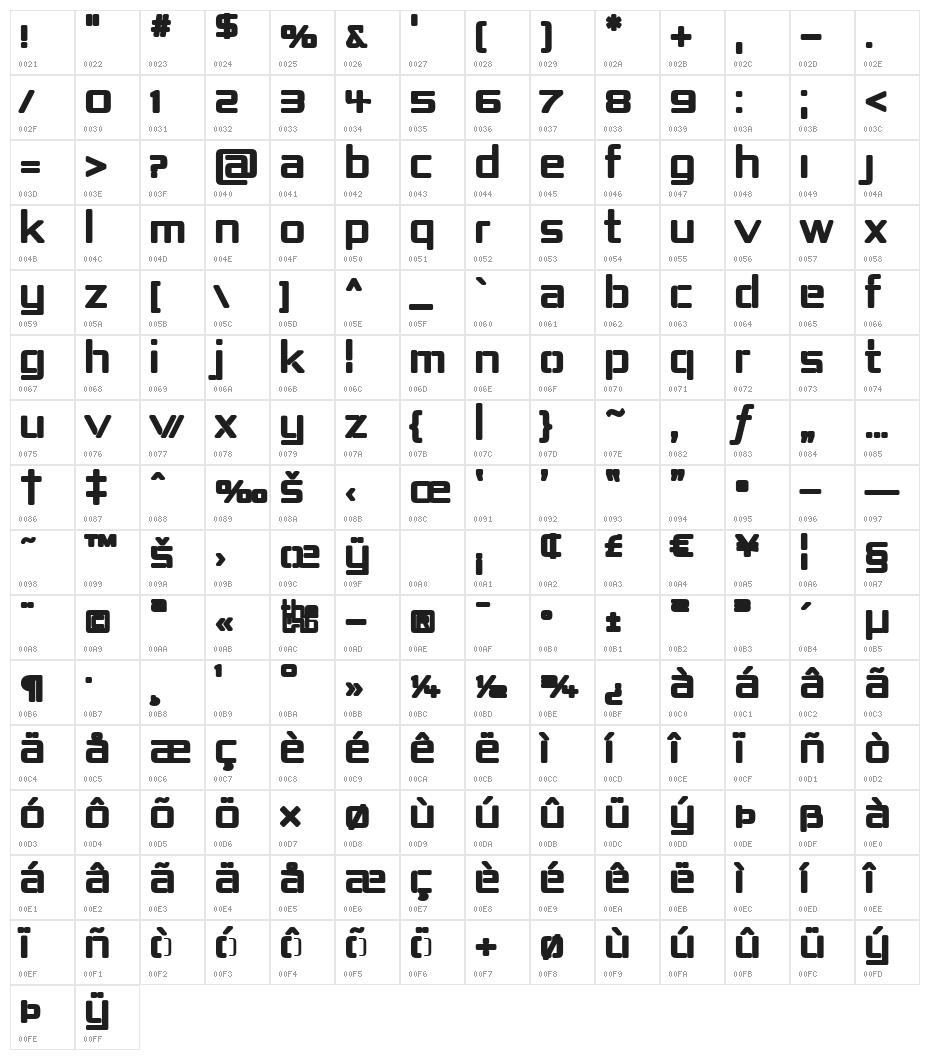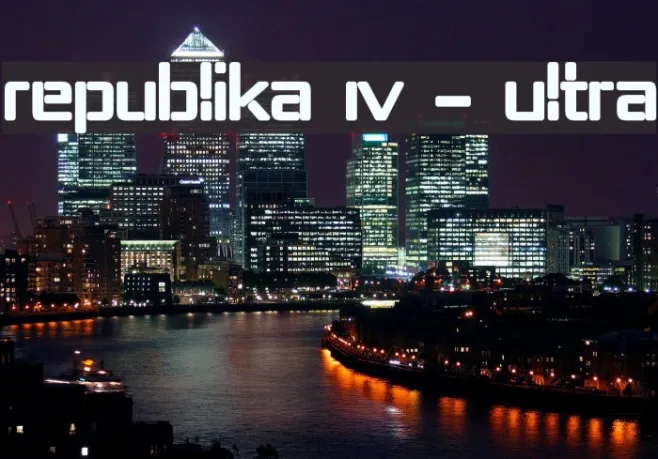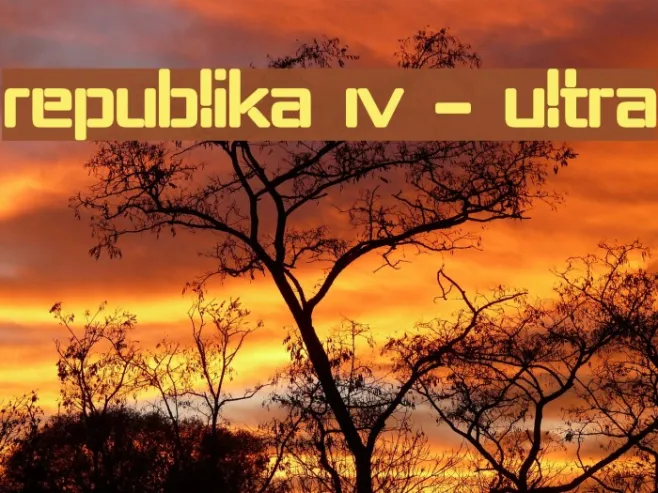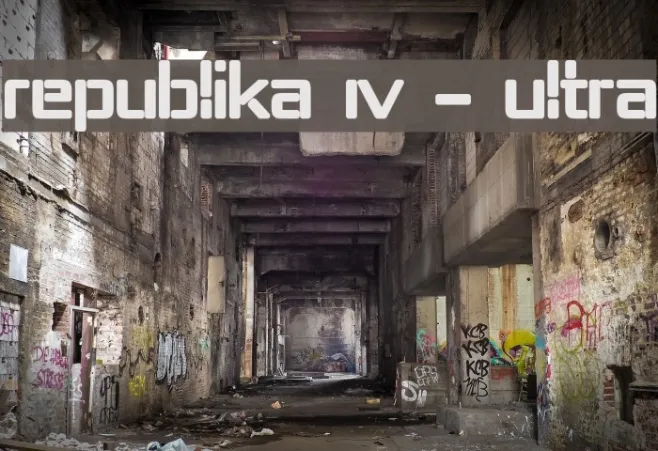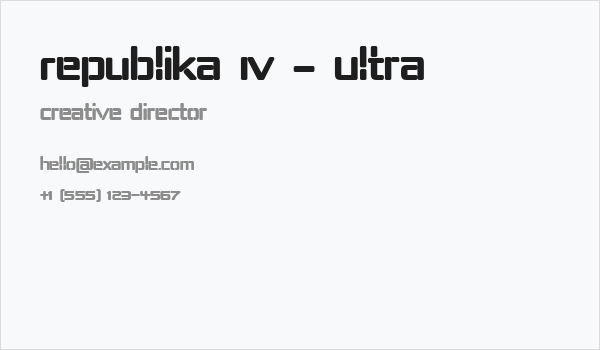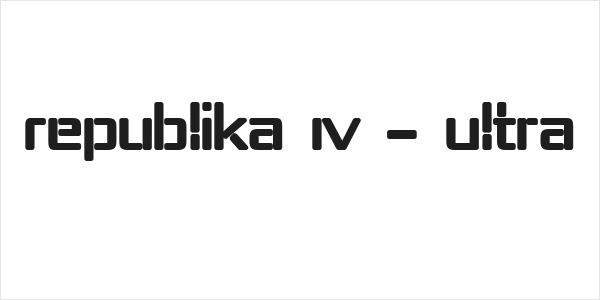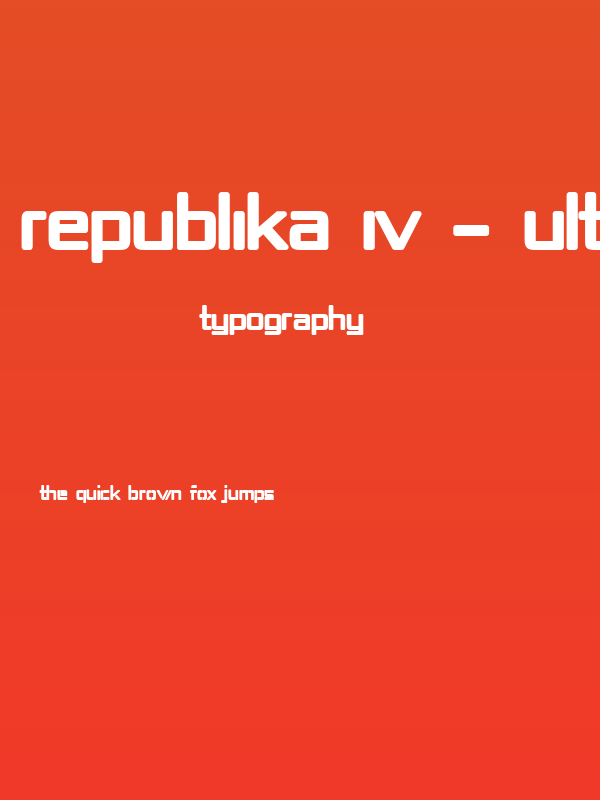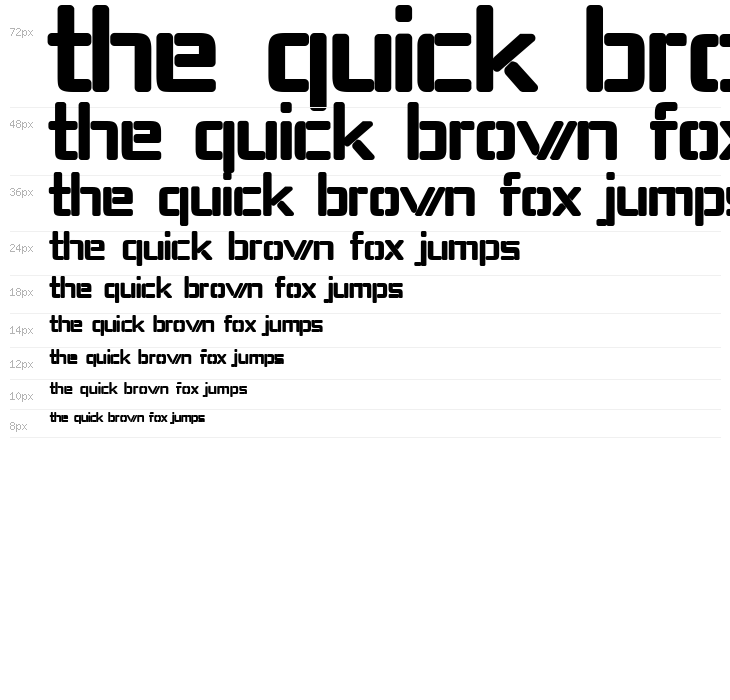
Republika IV - Ultra Font
Republika IV - Ultra Description
This font features a bold, geometric design with a modern and futuristic aesthetic. The characters are constructed with consistent stroke widths, creating a uniform and cohesive look. The rounded edges and square shapes give it a distinctive, tech-inspired appearance. The uppercase and lowercase letters maintain a similar structure, enhancing readability while retaining a unique style. Numbers and special characters are designed to match the overall geometric theme, making them easily recognizable. The font's boldness and clarity make it suitable for impactful designs.
| Proposed Projects | Ideal for technology branding, futuristic posters, video game titles, and digital interfaces. |